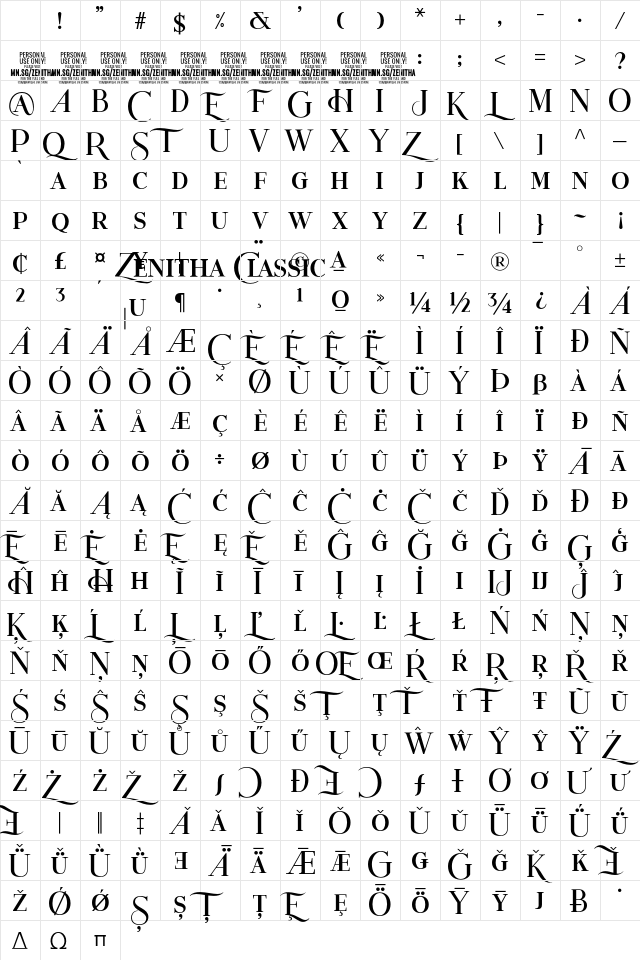
Complete Zenitha Classic PERSONAL USE Regular glyph index. Displaying only characters natively supported by Zenitha Classic PERSONAL USE Regular font.
Zenitha Classic PERSONAL USE wears its vintage influences proudly, with letterforms that recall mid-century signage, classic packaging, and nostalgia-driven design.
Font Pairing: Combine Zenitha Classic PERSONAL USE with a simple slab or neutral sans - period-accurate companions reinforce the vintage feel without competing for attention.
Pro Tip: Lean into Zenitha Classic PERSONAL USE's period character by pairing it with aged paper textures, muted colour palettes, and vintage illustration styles.